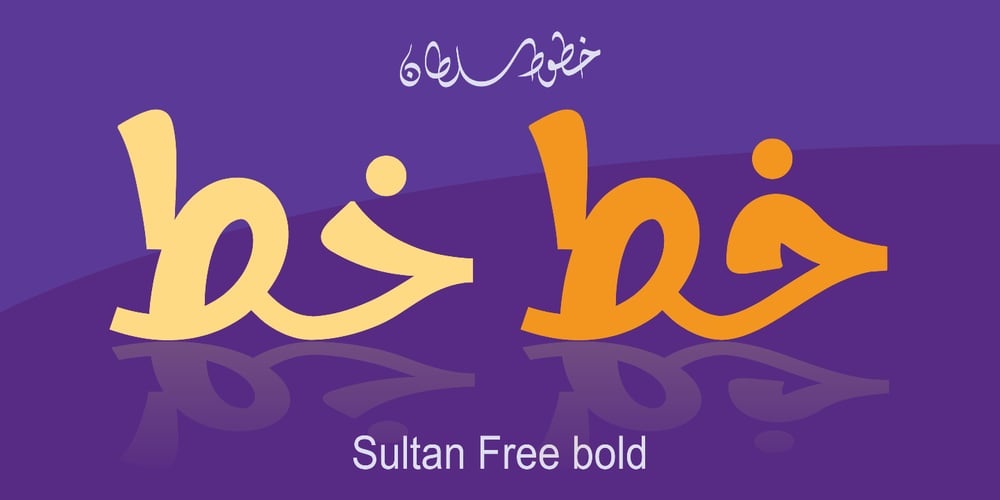
Sultan Free Bold
Sultan Free Bold font
Sultan Free Bold Font Family was designed by Sultan Maqtari and published by Sultan Fonts. Sultan Free Bold contains 1 styles and family package options. Sultan free is an Arabic text typeface for desktop applications. Sultan free is a freestyle script. It is available in One style, calligraphic, and very dynamic. This makes it suitable for large display sizes, especially in the area of advertising, while still functioning well as a text face. The font includes a support for Arabic, Persian, and Urdu. Sultan free typeface comes with many opentype features.